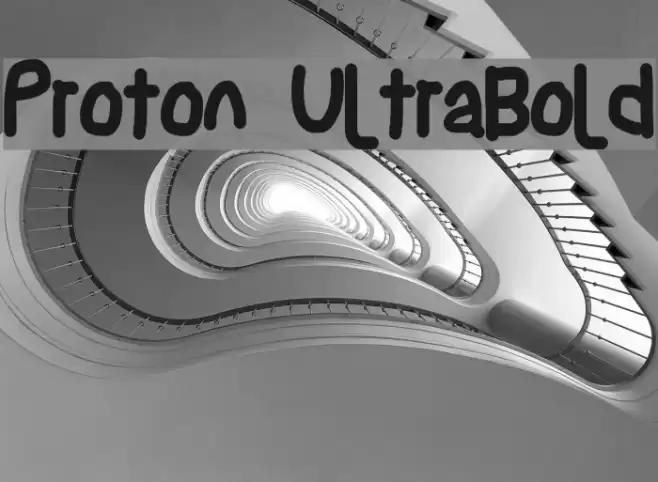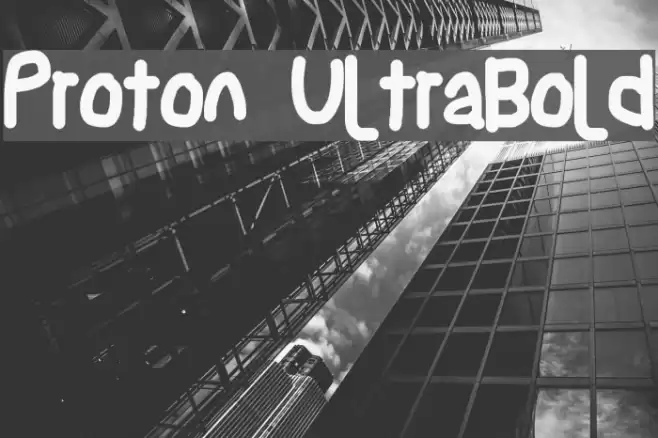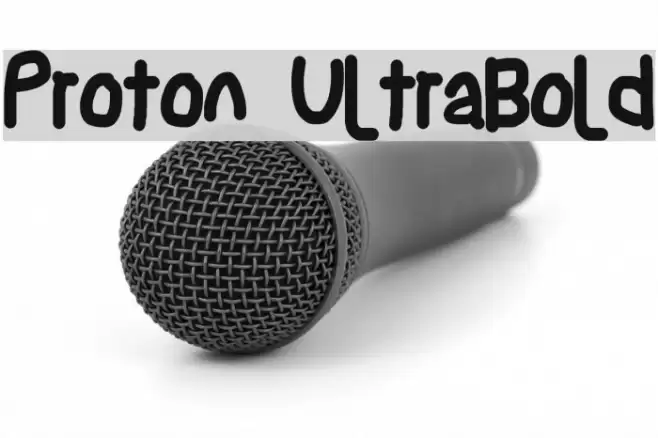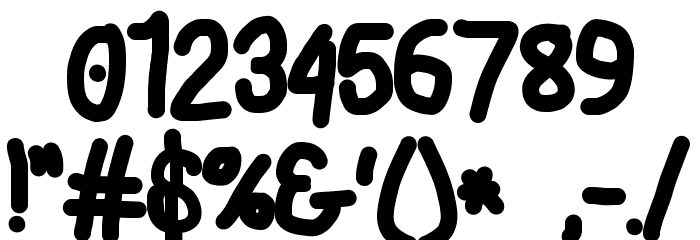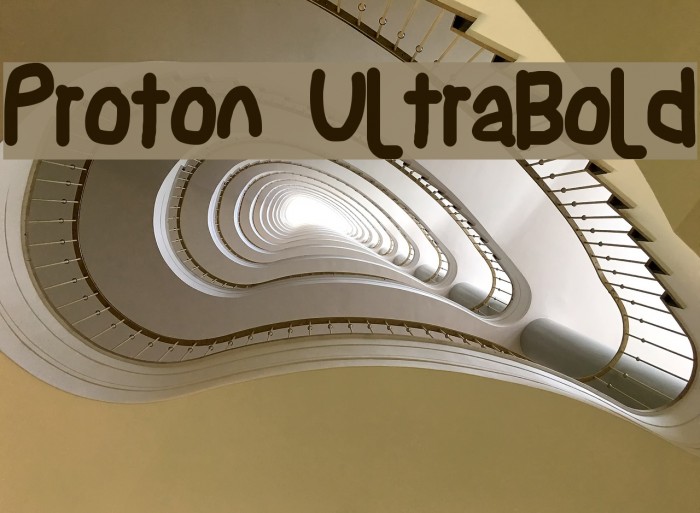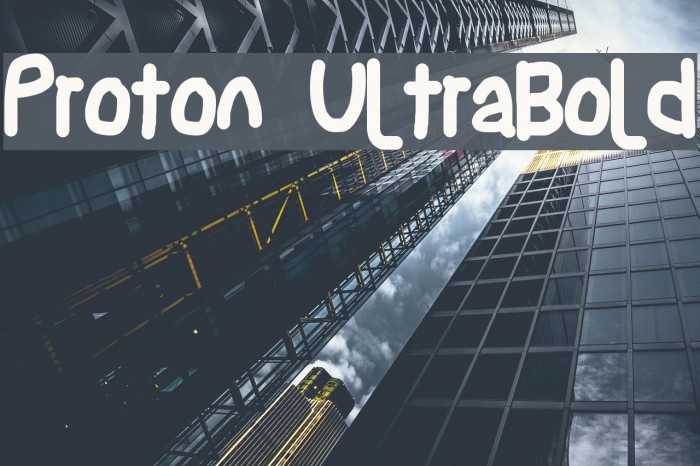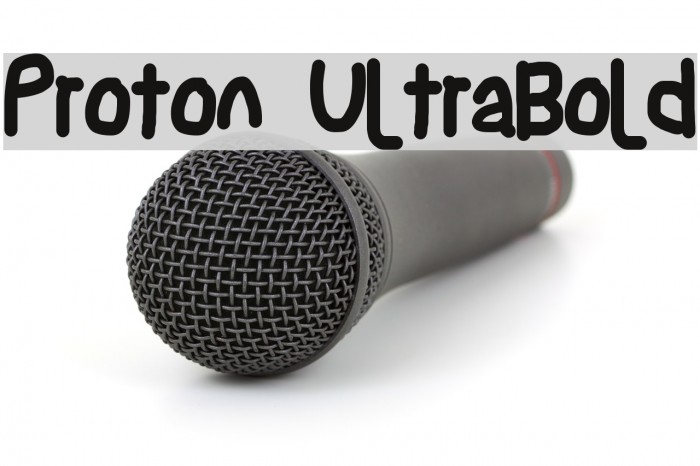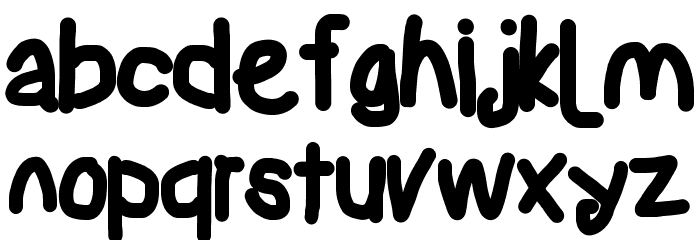
Proton UltraBold Font
Proton UltraBold Description
This font features a bold and playful handwritten style, characterized by thick strokes and rounded edges. The letters are slightly irregular, giving it a casual and friendly appearance. The uppercase and lowercase letters maintain a consistent weight, enhancing readability while adding a touch of whimsy. The numbers and special characters follow the same design principles, ensuring a cohesive look across all elements. This font's unique style makes it stand out, perfect for projects that require a personal and approachable touch.
A bold, playful handwritten font with thick strokes and rounded edges from Uncategorized fonts.
- Proposed Projects: Ideal for children's books, playful branding, casual invitations, and creative posters.
- Overall Style: Playful